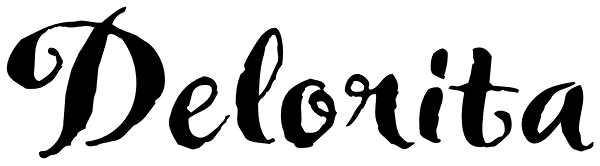
Delorita BV
Delorita BV is a beautiful and fun quill pen font! Think: Frida Kahlo, flamenco dancers, gypsy fortune tellers, dried roses and homespun chic.
Delorita Font